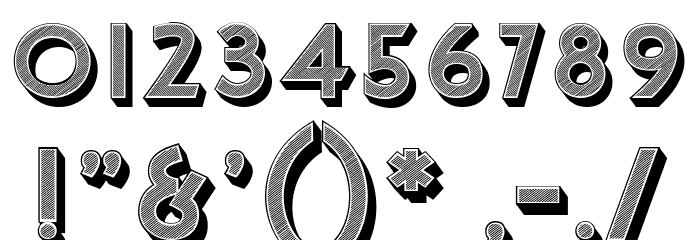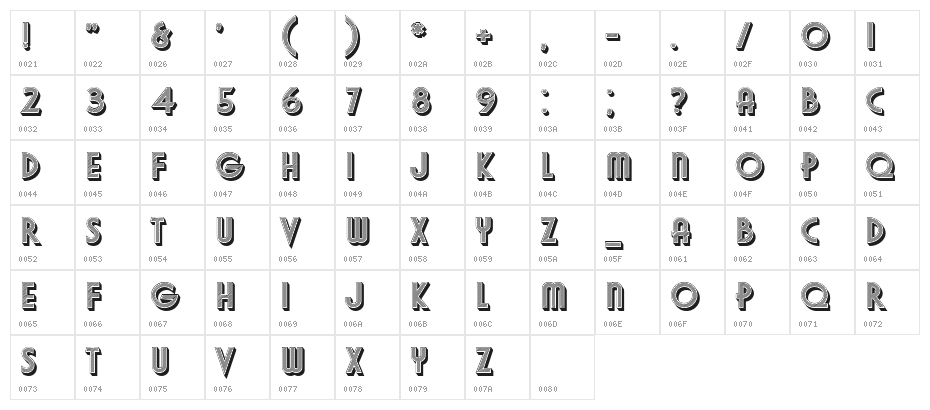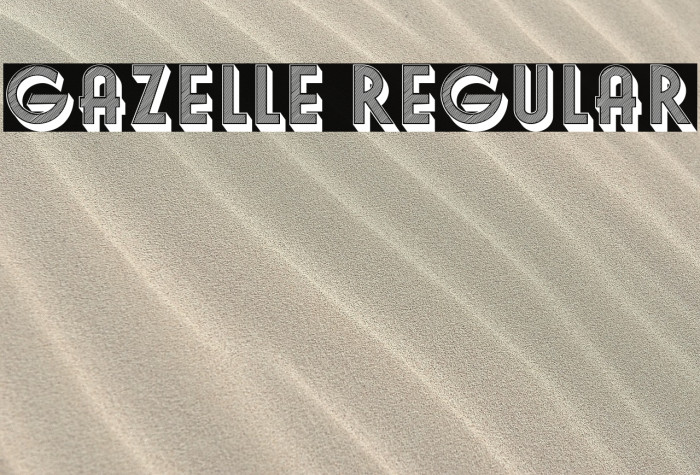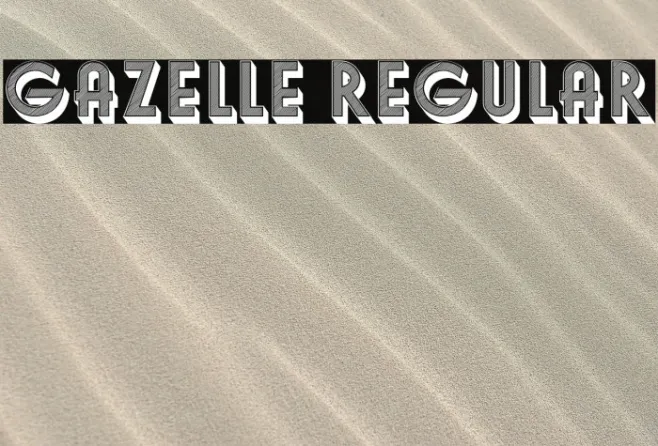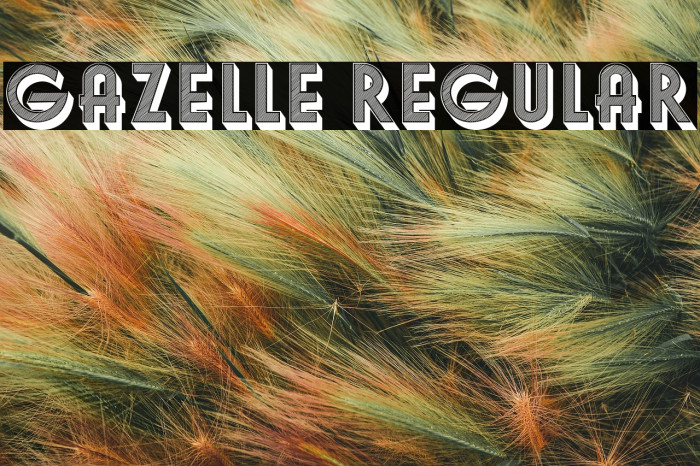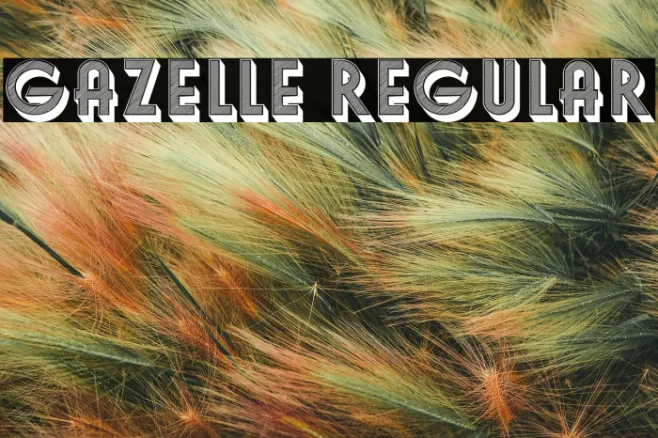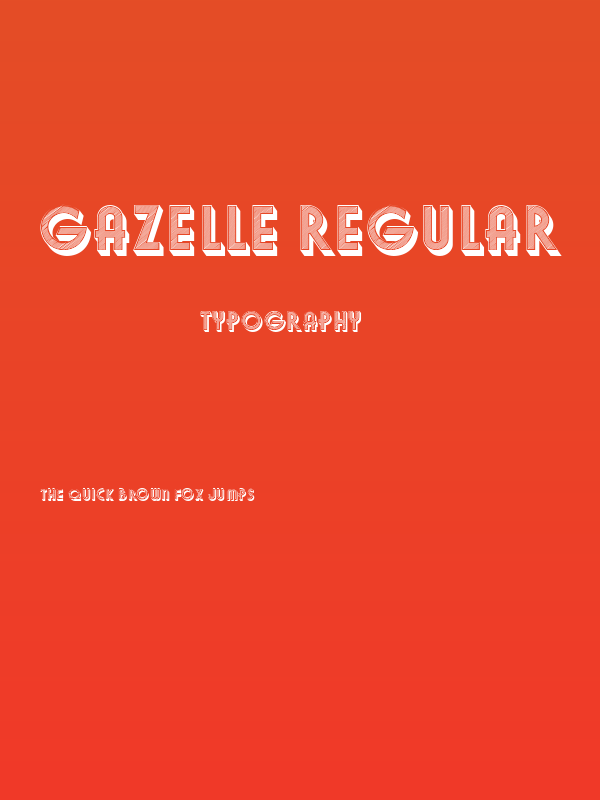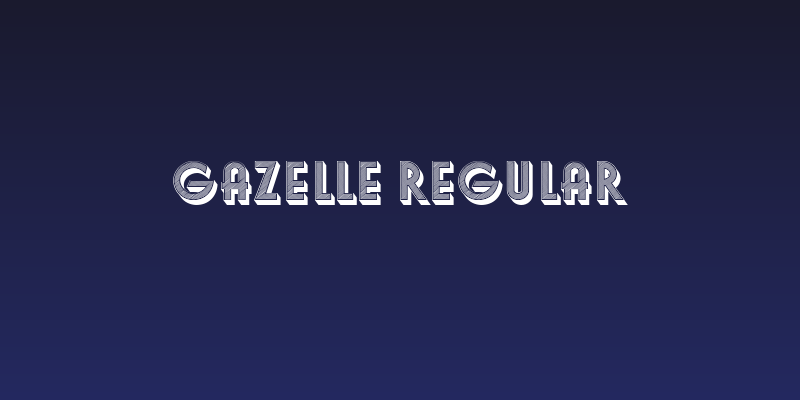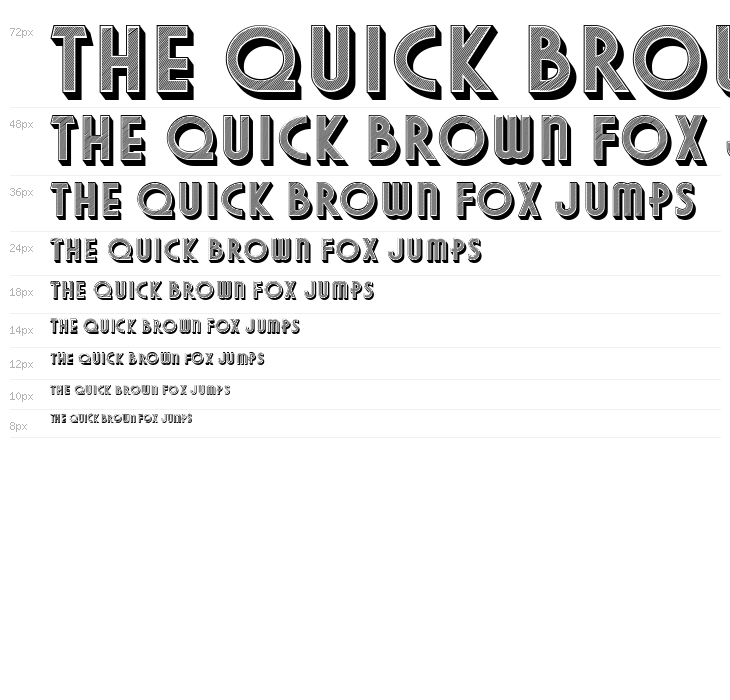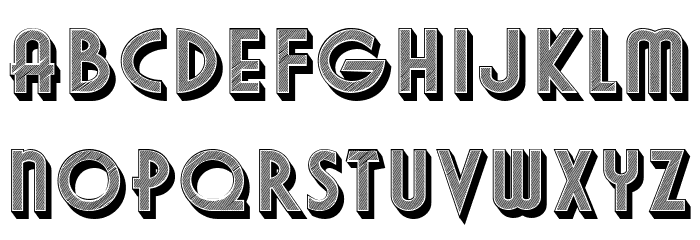
Gazelle Regular Font
Gazelle Regular Description
This font features a bold and striking design with a three-dimensional effect, achieved through shadowing and layering. The characters are uppercase, showcasing a geometric and structured form that conveys strength and modernity. The font's unique style is characterized by its thick strokes and sharp edges, creating a sense of depth and dimension. The numbers and special characters maintain the same boldness and dimensionality, ensuring consistency across all elements. This font is ideal for projects that require a strong visual impact, such as posters, headlines, and branding materials.